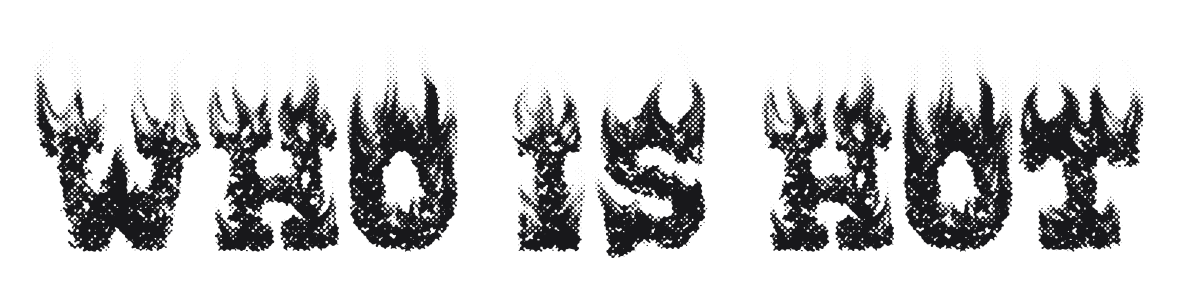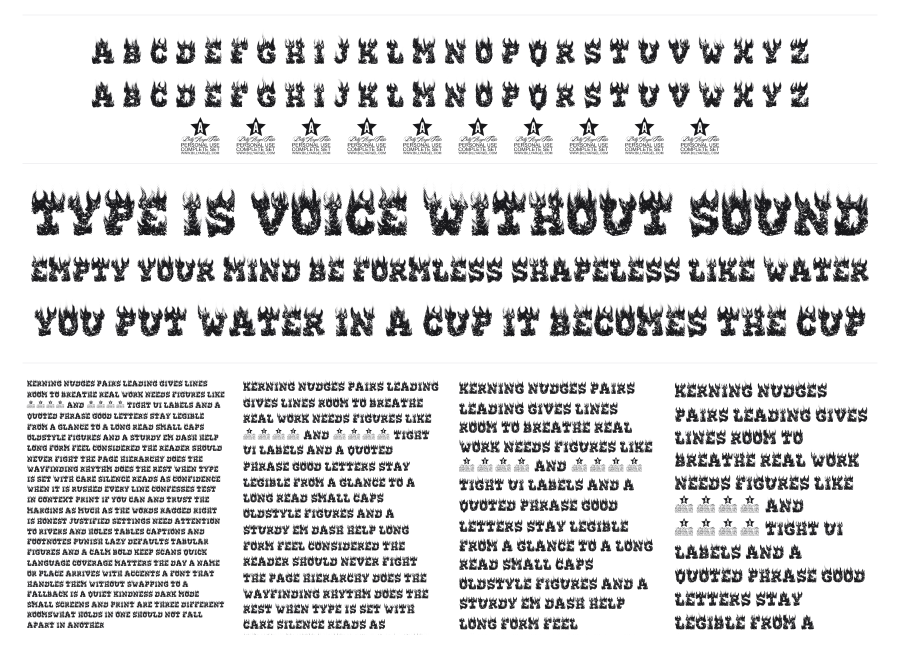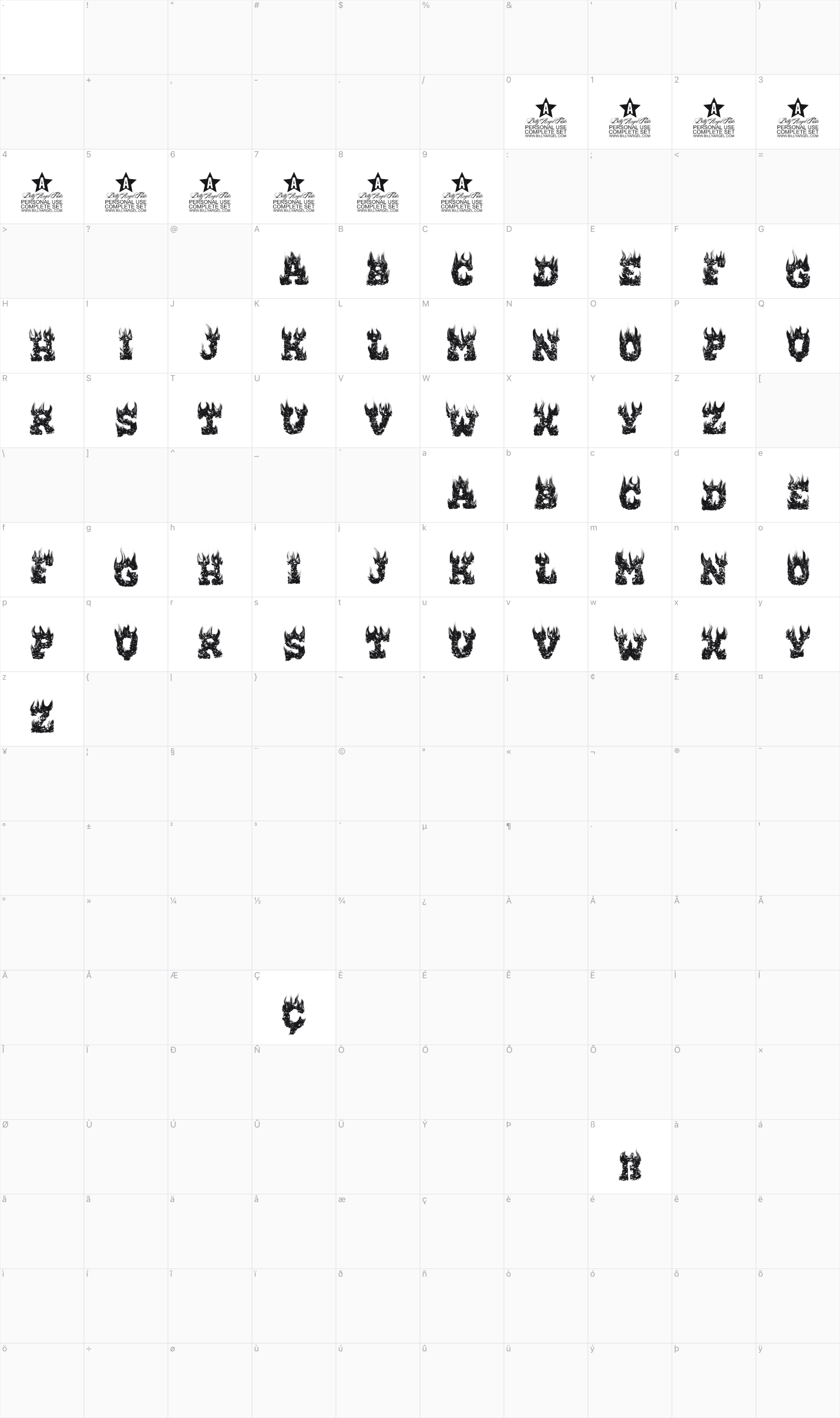
Who Is Hot
Who Is Hot is a flame-engulfed distressed display font from Billy Argel, where every character appears to be actively burning with eroded, textured edges. The heavy slab-like base is completely overtaken by jagged flame projections and grunge texture, making it impossible to miss at headline sizes. It brings heat to posters, album covers, band logos, and anything that needs to feel dangerous.